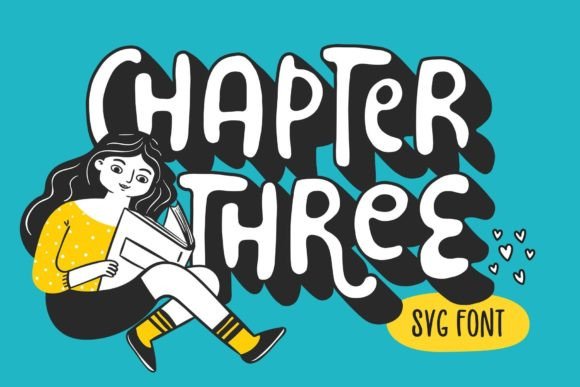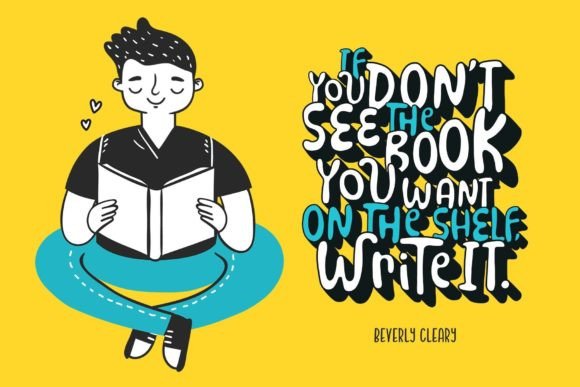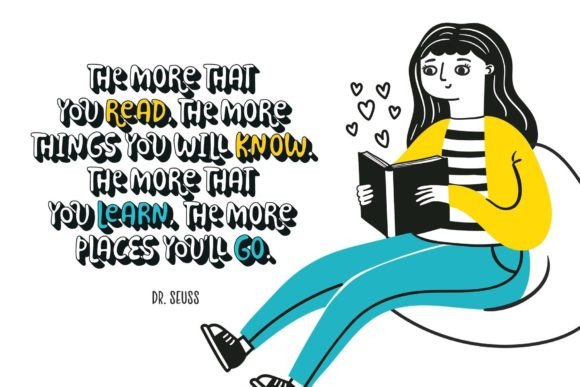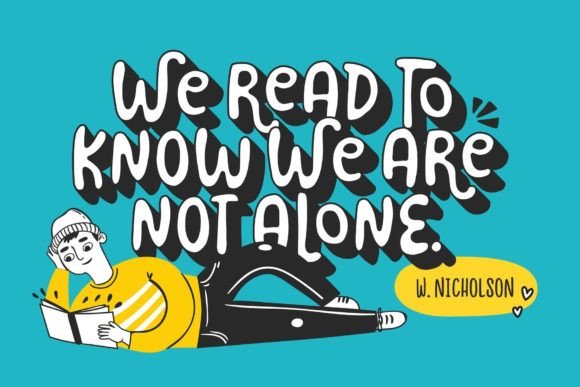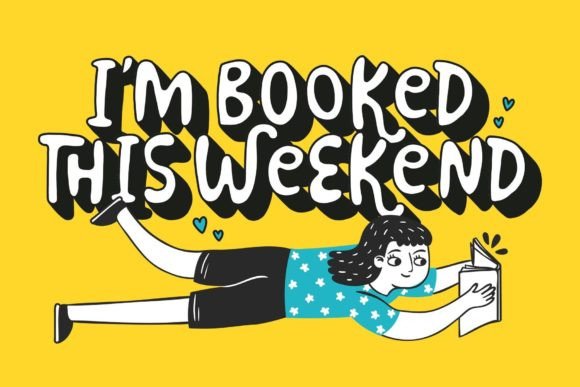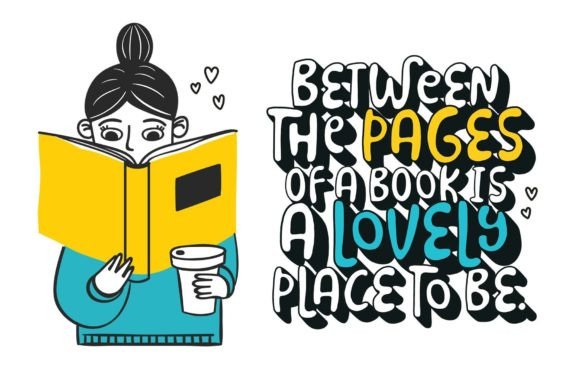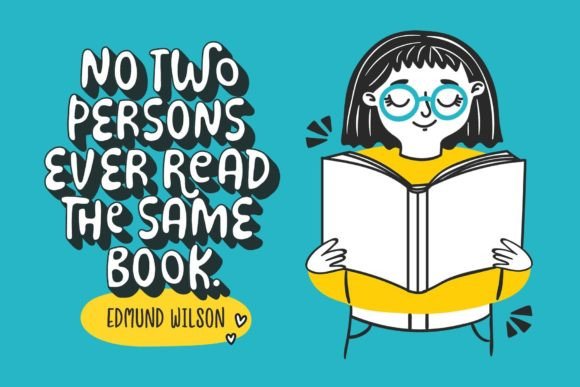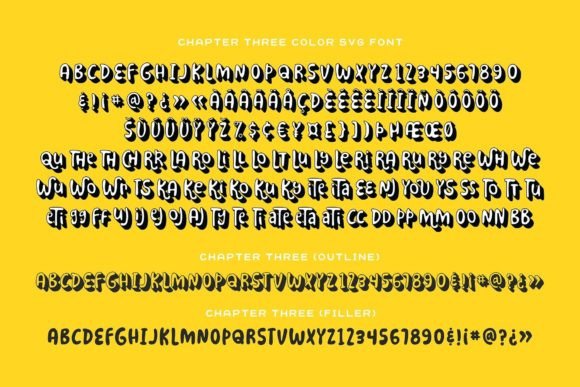
Chapter Three Font
About Chapter Three Font
Introducing Chapter Three font! This bubbly hand-drawn font is full of character and charm, featuring a solid drop shadow and a collection of playful ligatures. With its unique style and vibrant design, Chapter Three font is sure to add a touch of whimsy to your creative projects.
The font’s solid drop shadow gives it a three-dimensional appearance, creating depth and visual interest. Whether you’re designing posters, logos, invitations, or any other project that requires a lively and energetic font, Chapter Three is here to make a statement.
So, unleash your imagination and let Chapter Three font bring joy and playfulness to your projects. Its hand-drawn style and energetic design will make your typography stand out and leave a lasting impression on your audience. Whether you’re creating artwork, branding materials, or any other design, Chapter Three font is a versatile and delightful choice.
Get ready to explore the endless possibilities of Chapter Three font, and let its bubbly charm and dynamic ligatures take your designs to the next level.